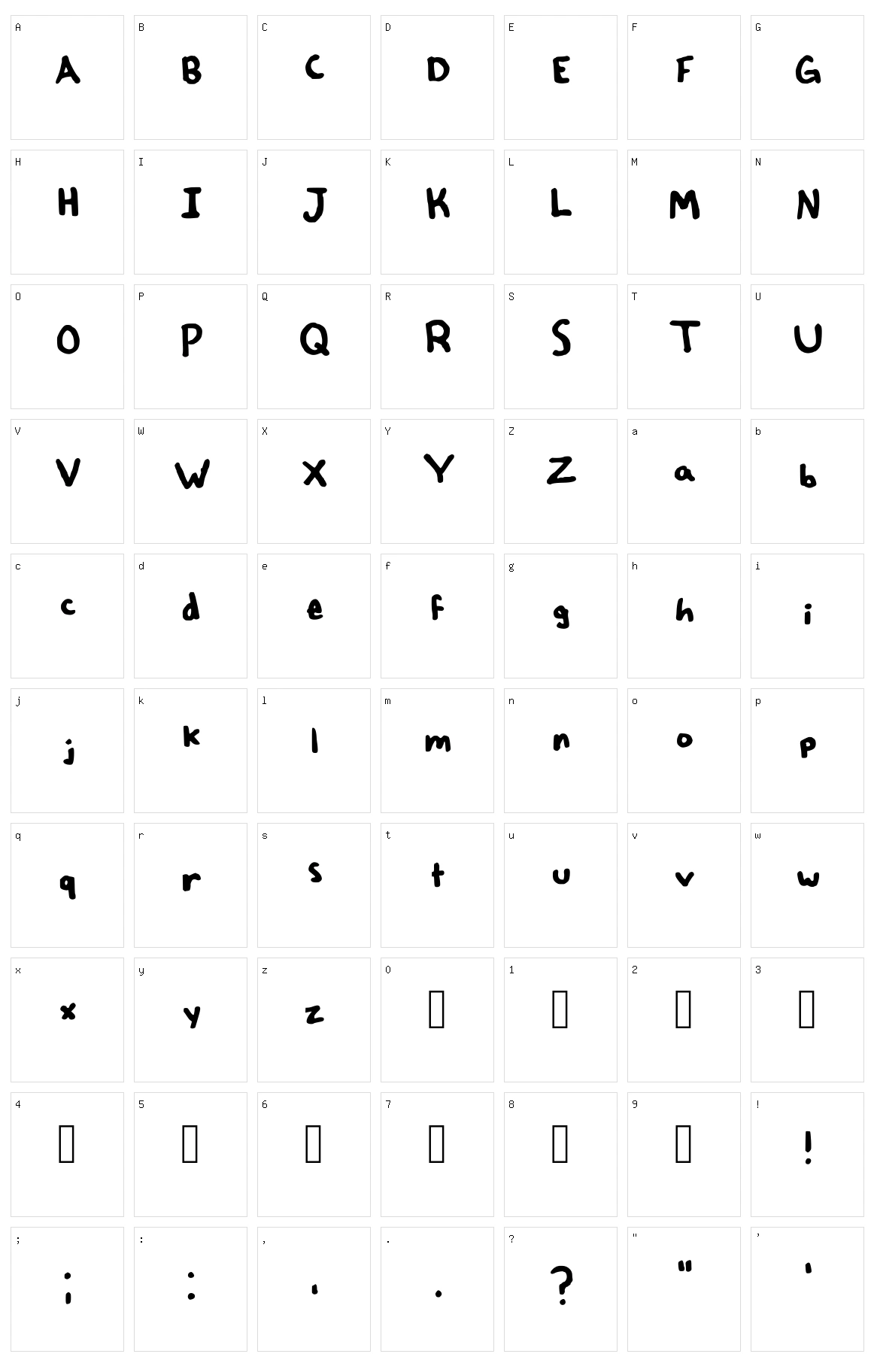
The free font Sharpie is carefully designed by rac0208, showcasing a thoughtful balance of creativity and usability and falls under the Script font style. When you download the ZIP file, it contains only 8.21 KB of font files, making it lightweight and quick to download. Please review the license details below to understand permitted usage and distribution rights. If license information is not available, we recommend using this font for personal projects only or contacting the author directly for commercial usage permissions.